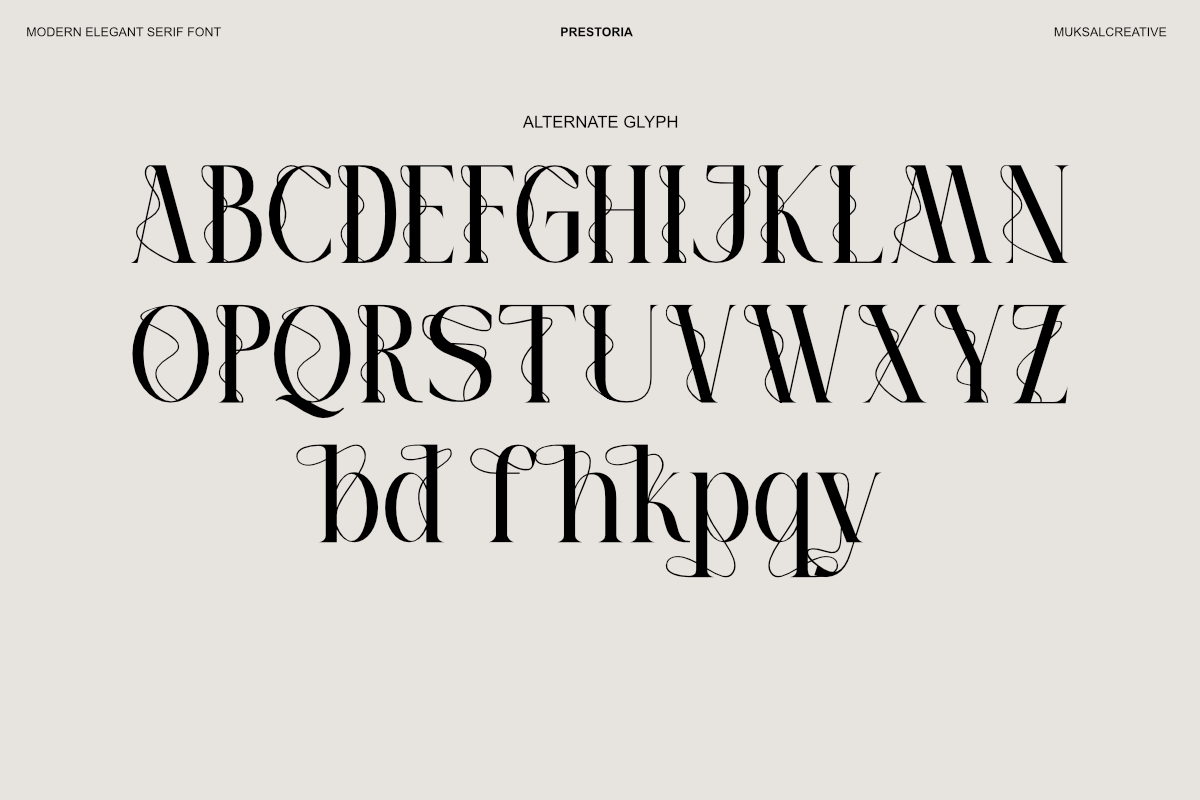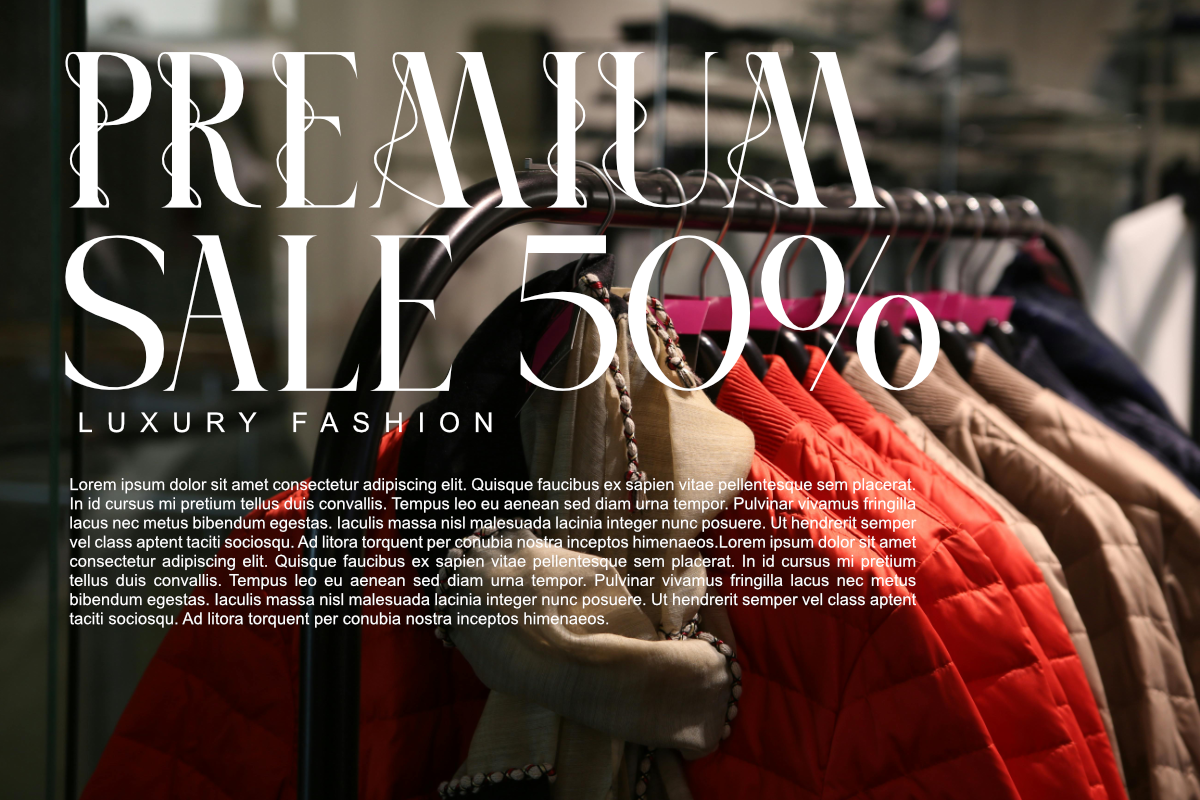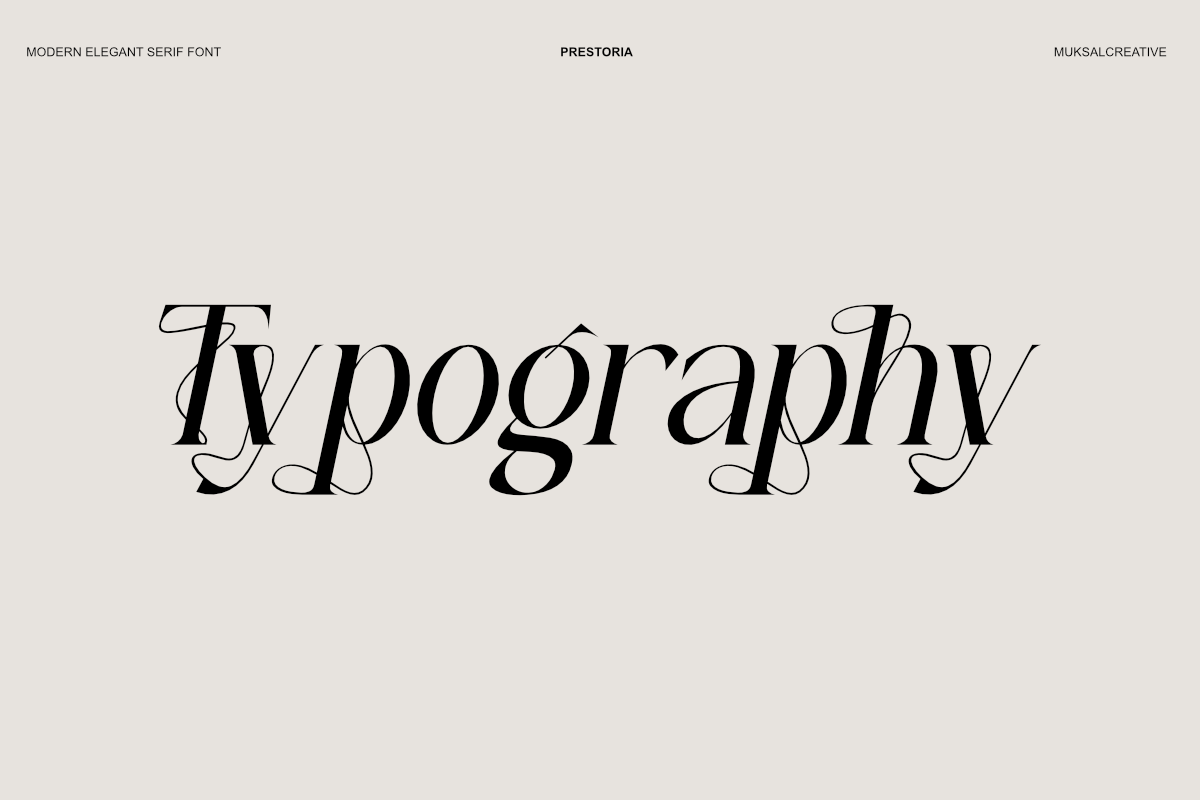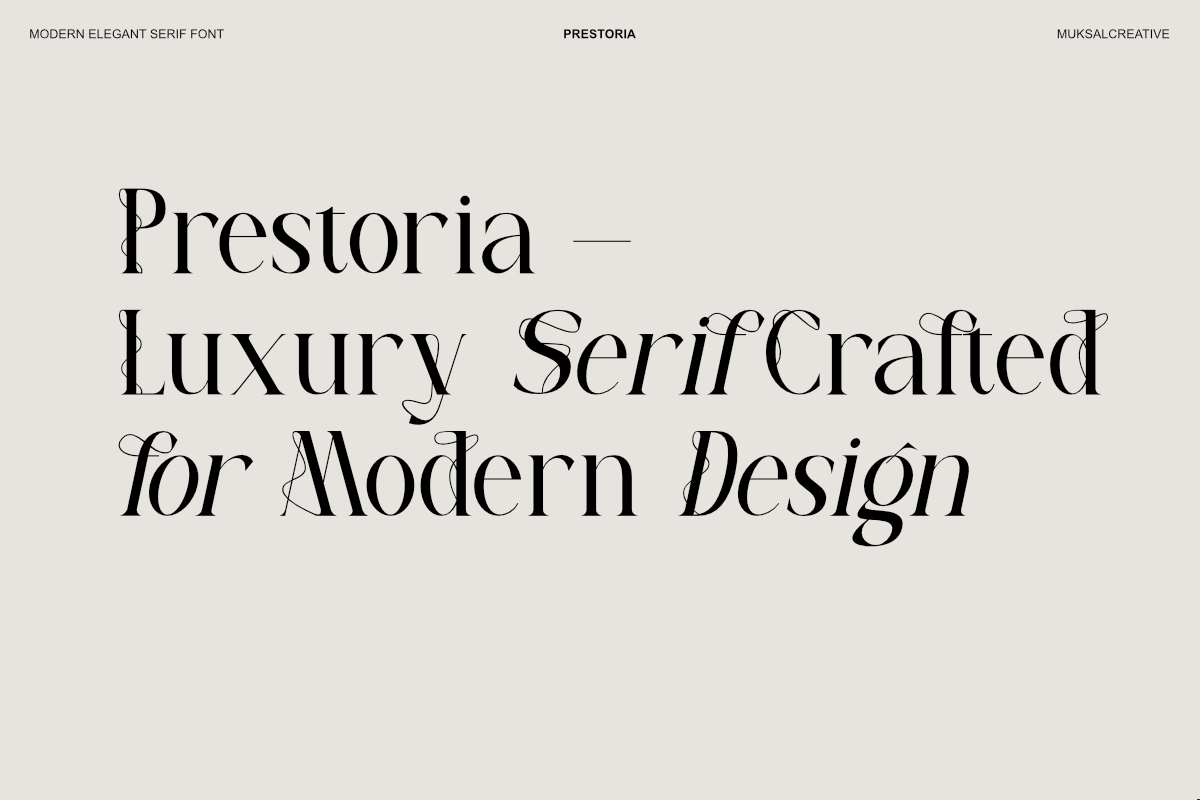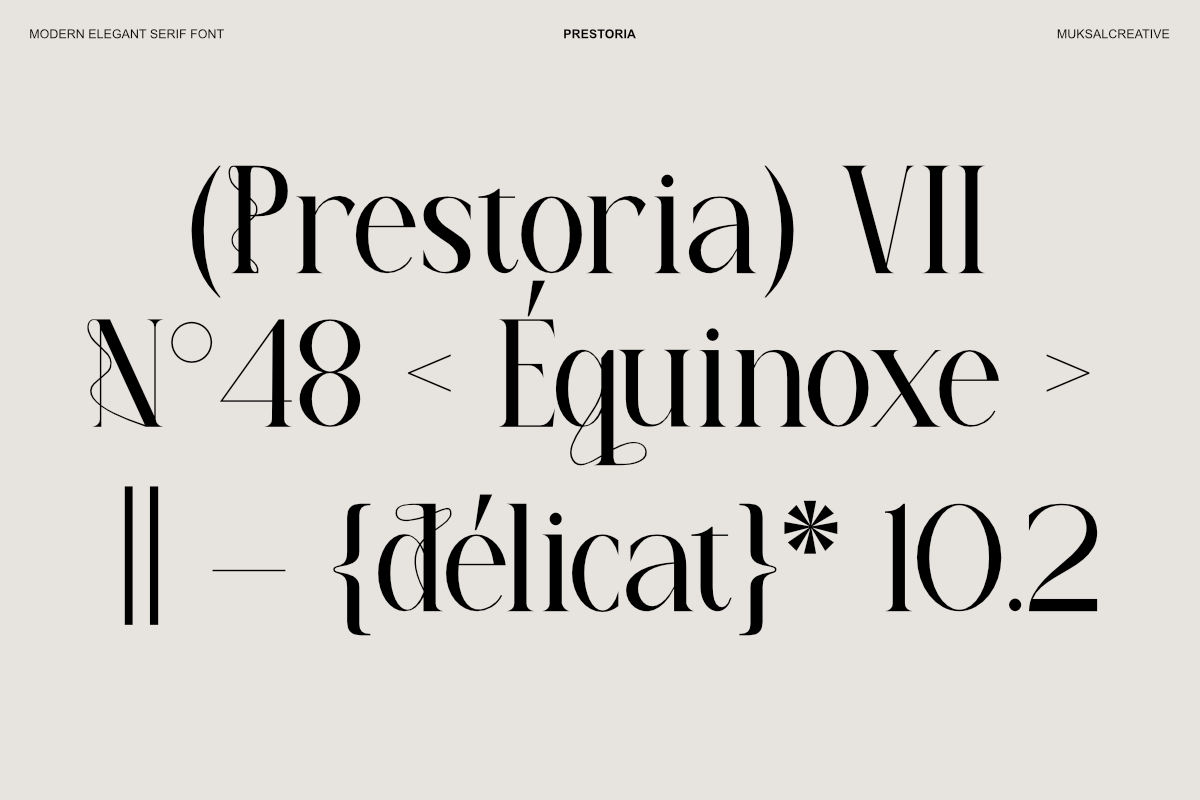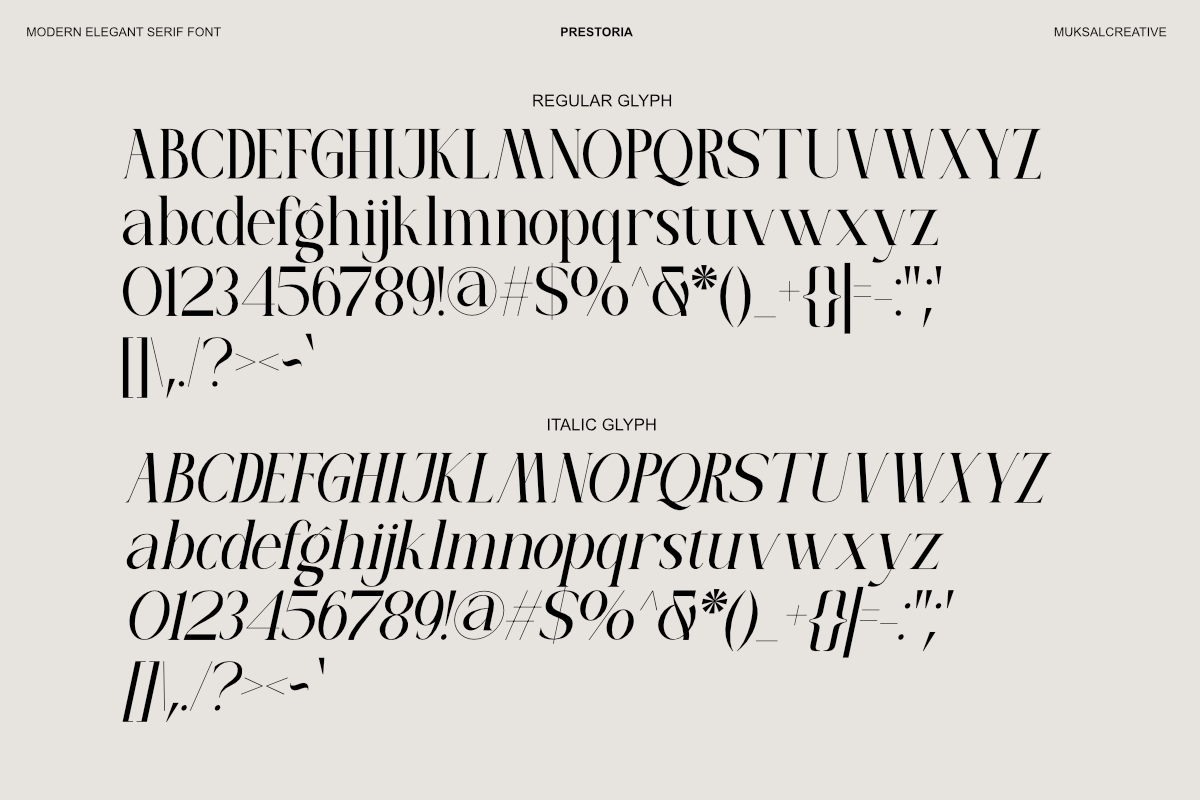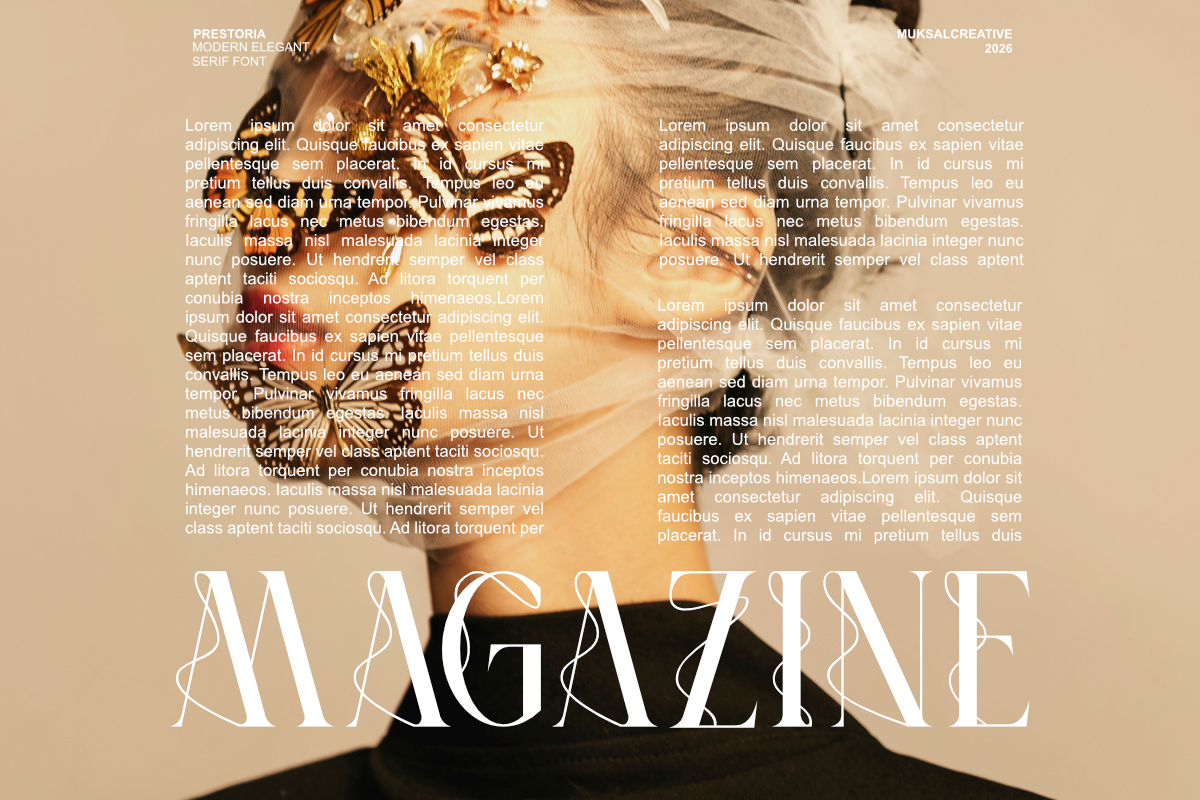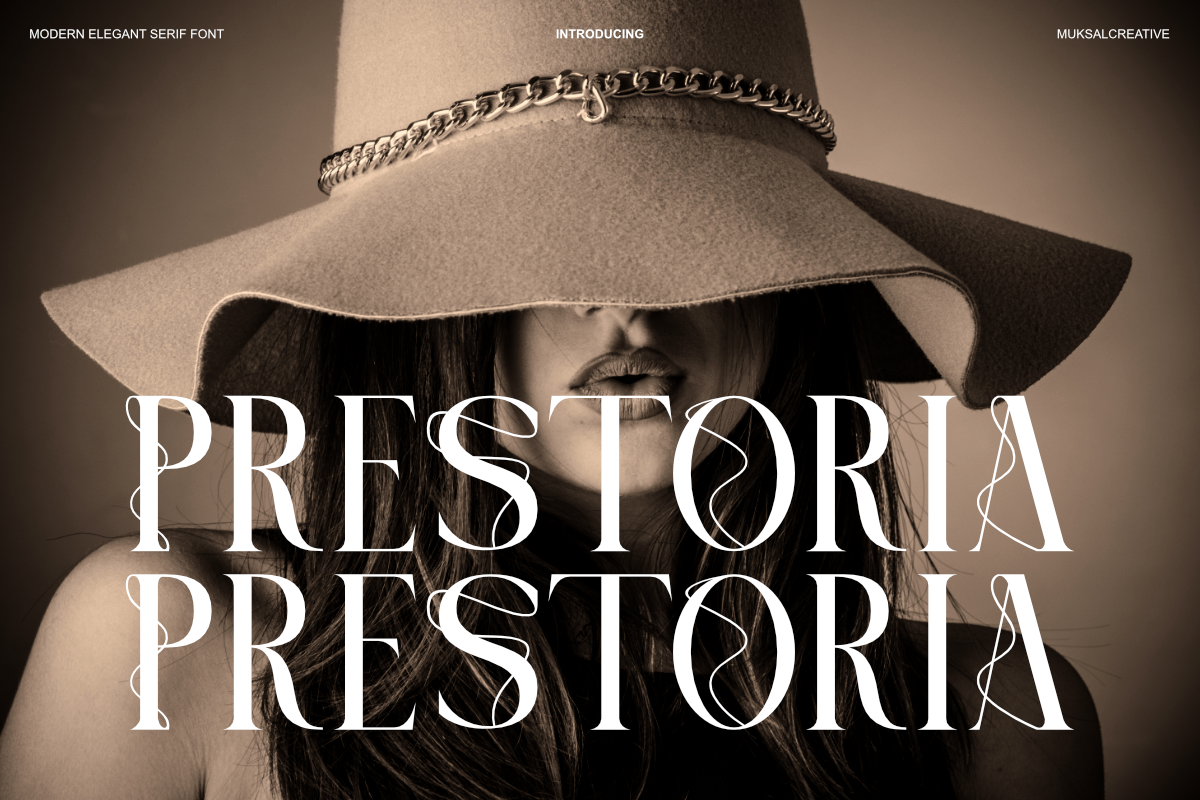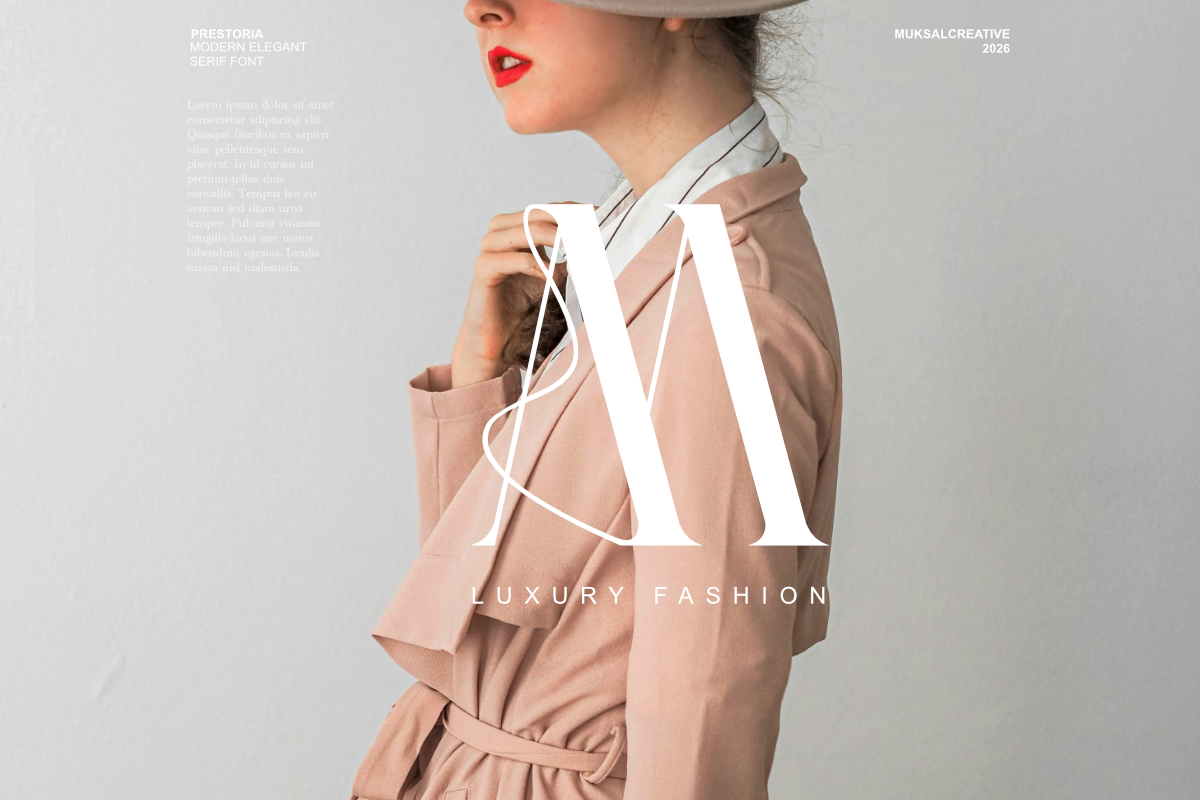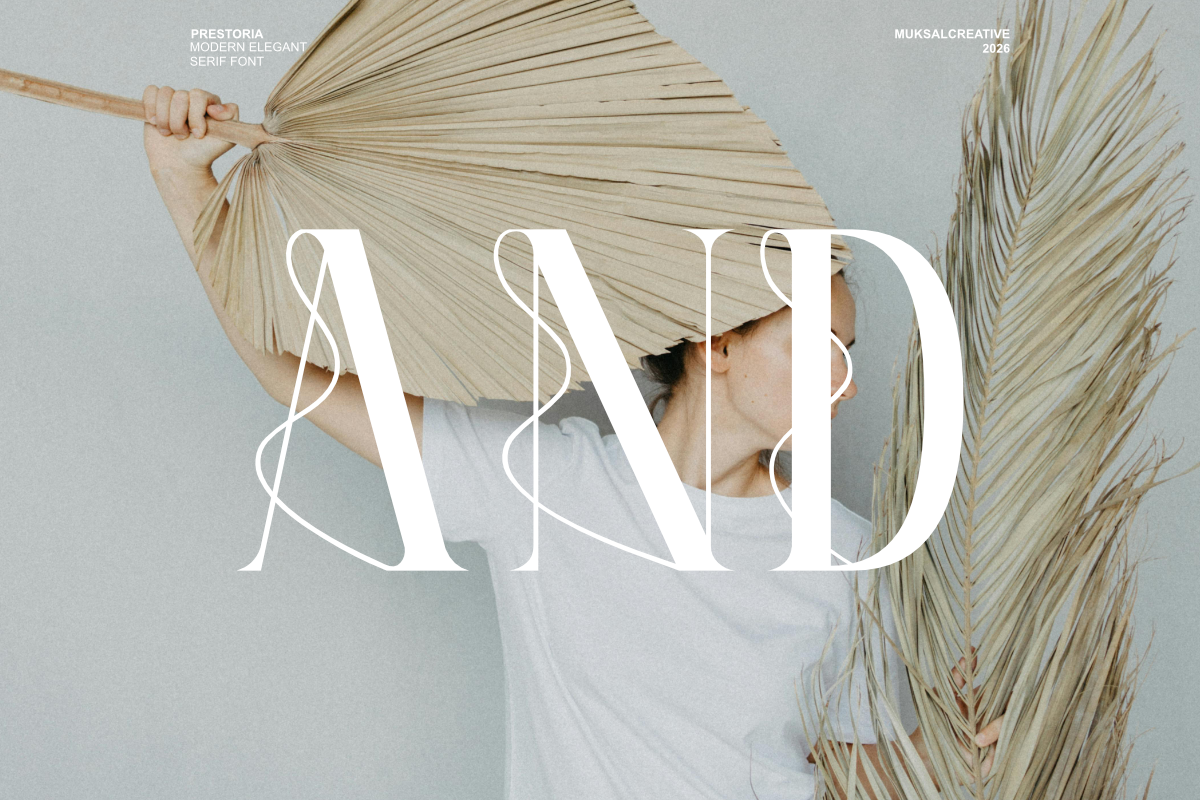
Prestoria Modern Elegant Serif Font
Prestoria is a modern elegant serif typeface that blends timeless sophistication with contemporary design. Crafted with refined high-contrast strokes and graceful curves, Prestoria delivers a luxurious yet balanced appearance, making it perfect for both editorial and display use.
Designed to stand out in headlines while remaining graceful in longer text, Prestoria features stylish ligatures, elegant swashes, and carefully designed alternates that add a distinctive personality to every word. Its classic foundation combined with modern detailing makes Prestoria an excellent choice for high-end branding and creative projects.
Whether used for fashion editorials, luxury branding, logos, magazine layouts, invitations, or premium packaging, Prestoria brings a sense of elegance, confidence, and artistic refinement to your typography.
✦ Font Features: Modern Elegant Serif Style High Contrast Strokes Stylistic Alternates & Swashes Ligatures Support Uppercase & Lowercase Numerals & Punctuation Multilingual Support